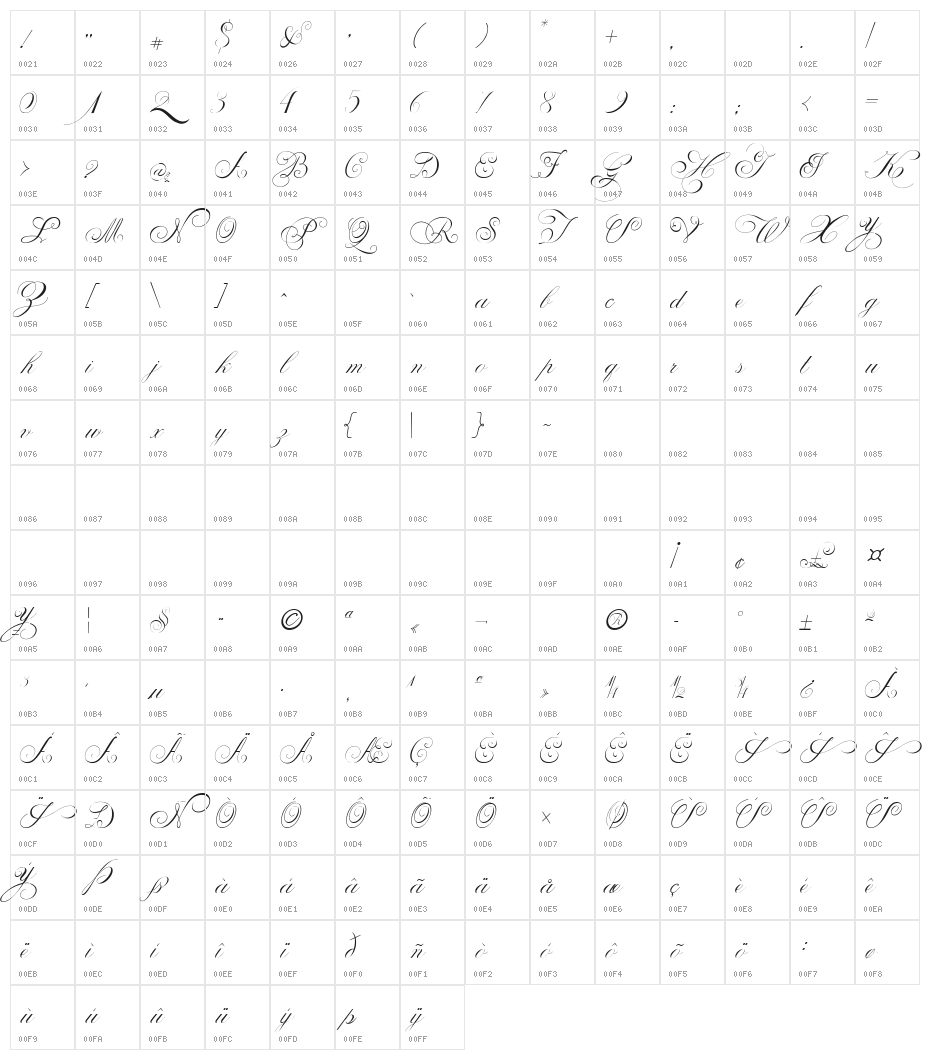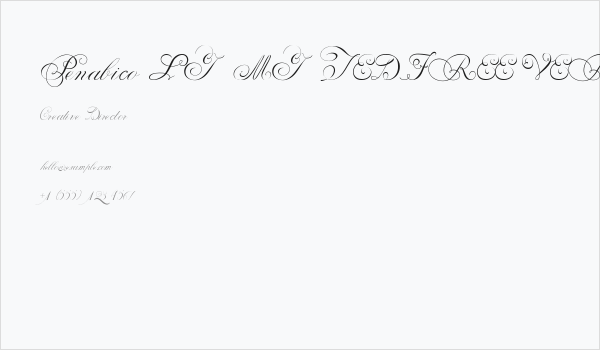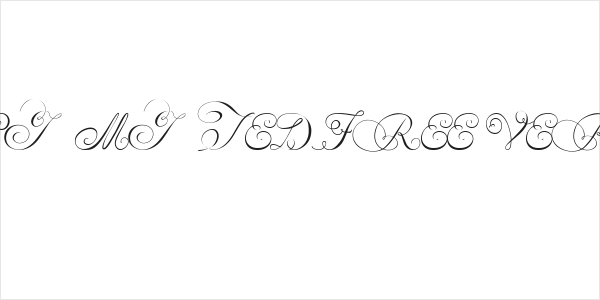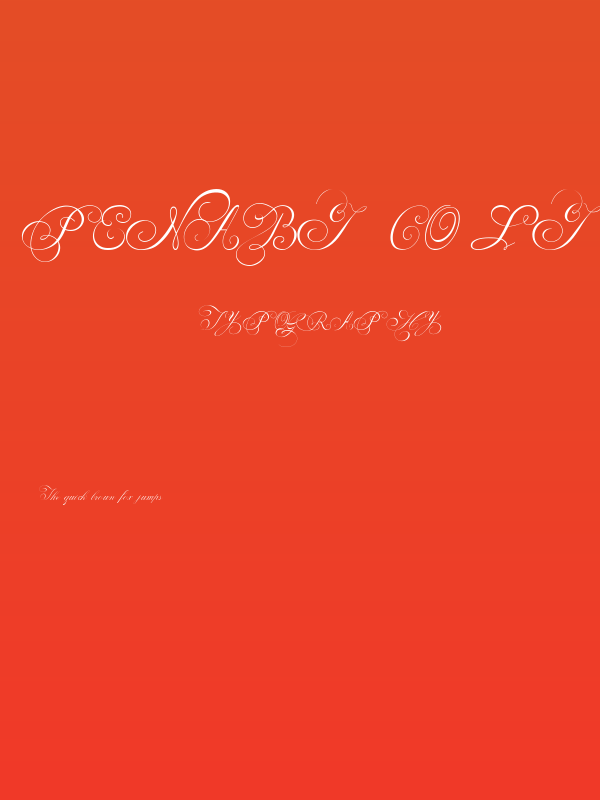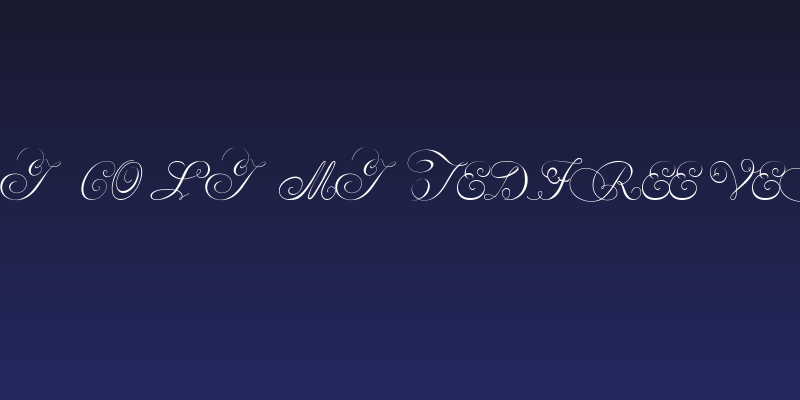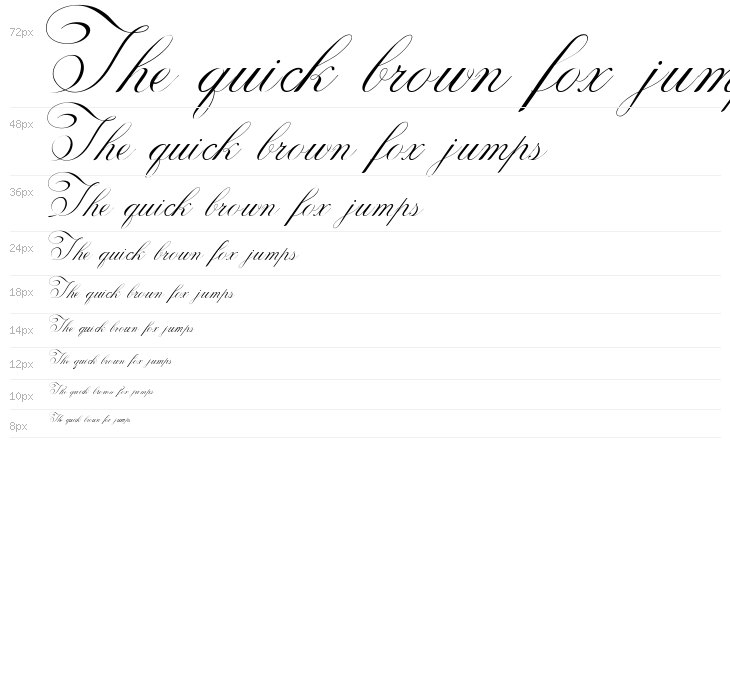
Penabico LIMITED FREE VERSION Font
Penabico LIMITED FREE VERSION Description
This elegant script font features intricate, flowing lines and elaborate swashes, creating a sense of sophistication and grace. The uppercase letters are particularly ornate, with decorative loops and flourishes that extend beyond the baseline and cap height. The lowercase letters maintain a consistent slant and are designed with a smooth, cursive style that complements the uppercase characters. The numerals are equally stylish, with a slight slant and subtle embellishments. This font exudes a classic, timeless appeal, making it ideal for formal invitations, branding, and other projects that require a touch of elegance.